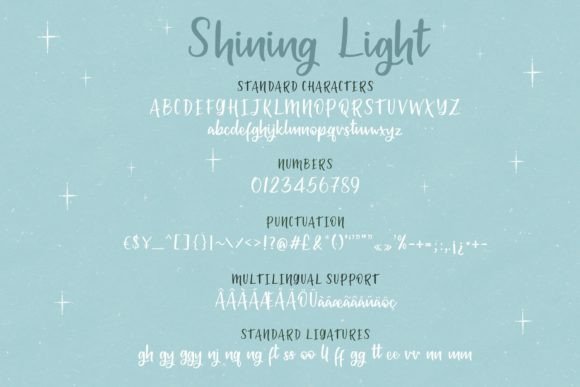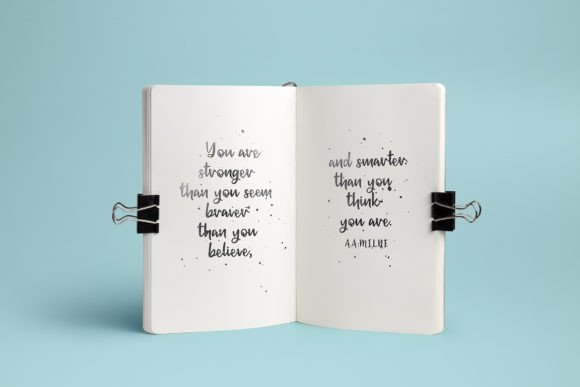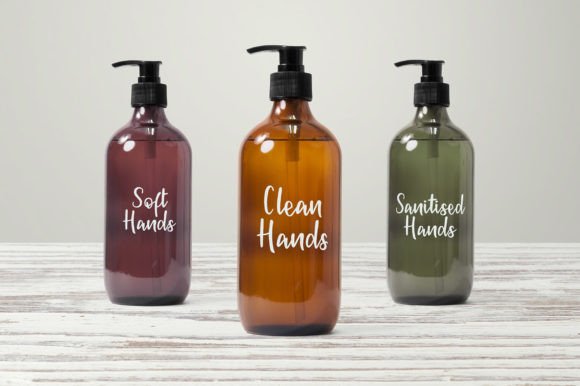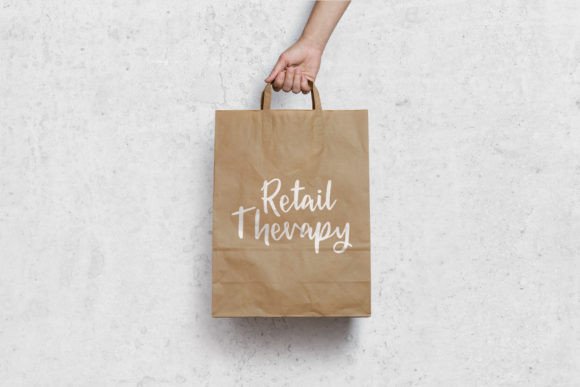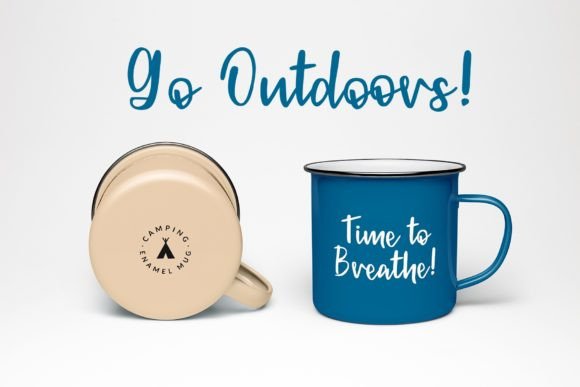
Introduction to Shining Light Font
Introducing an exquisitely cut, elegant handwritten script font; an ideal choice for every design project ranging from branding and social media to packaging, magazine layouts, and prints.
So, go ahead and add an artistic touch to your creations Endless style awaits.
Key Features of Shining Light Font
Why Choose Shining Light Font?
Shining Light Font offers exceptional quality and versatility, making it a valuable addition to your design toolkit. Whether you’re creating for personal projects or commercial use, Shining Light Font delivers professional results.